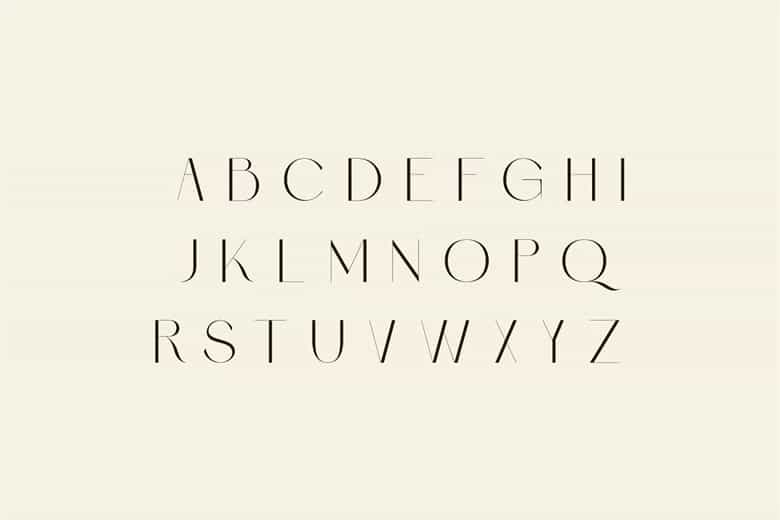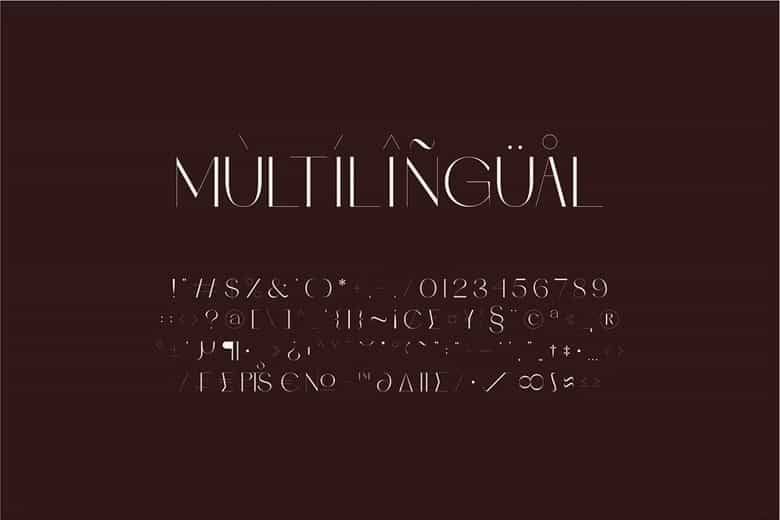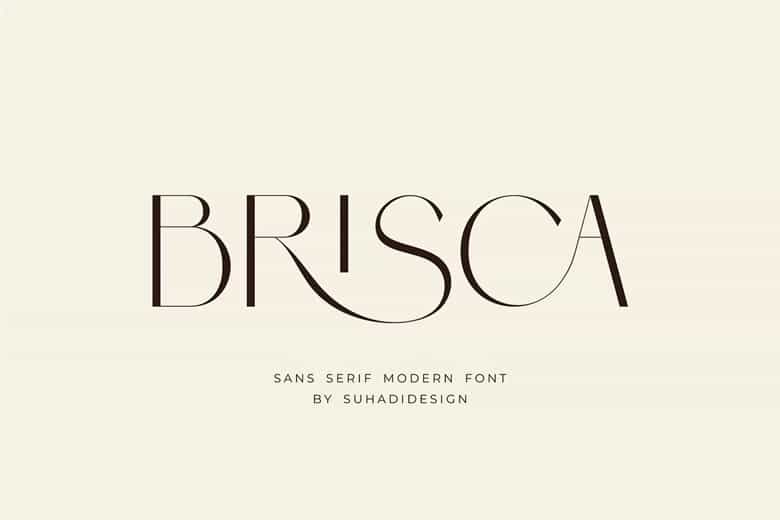
Brisca is a modern and cool sans serif typeface. We keep this font looking elegant, classy, stylish. Brisca is idea for cosmetics, beauty, brands, logos, wordmarks, magazines, designs, books, publications, branding, brand names, business cards, social media, classy design, newspapers, branding, beauty and other.